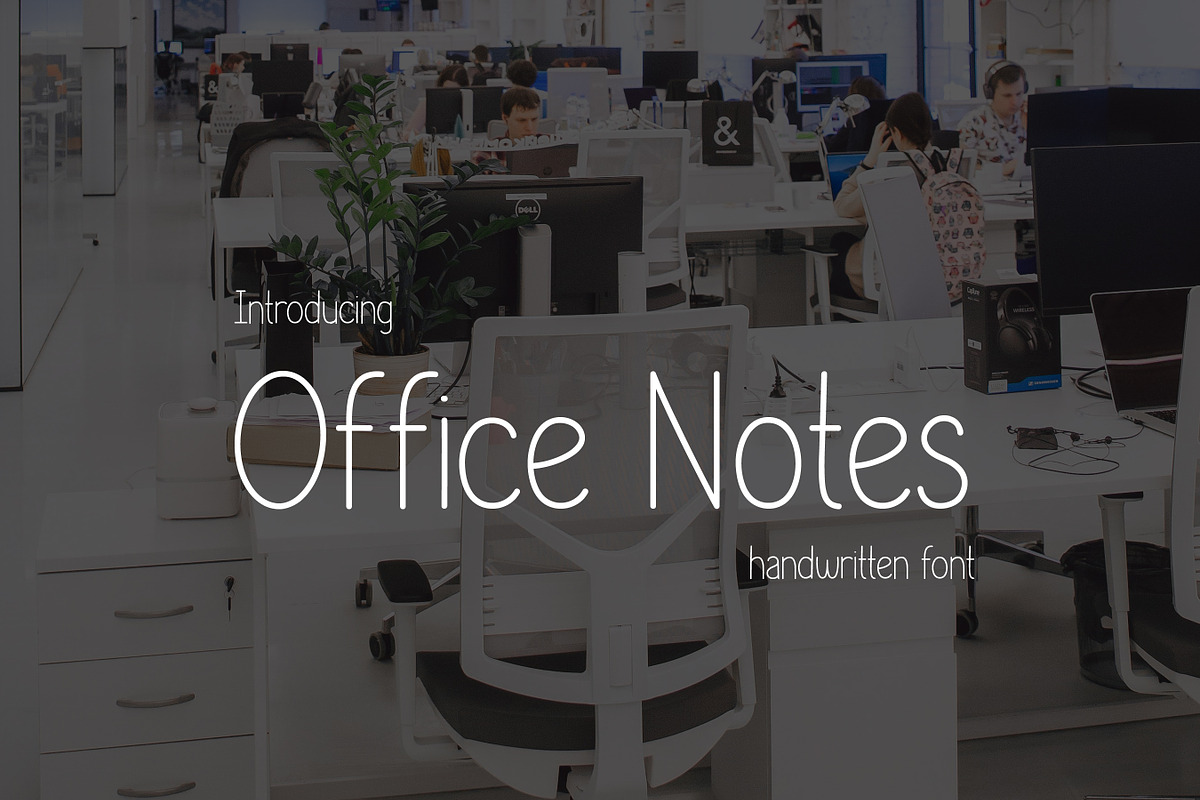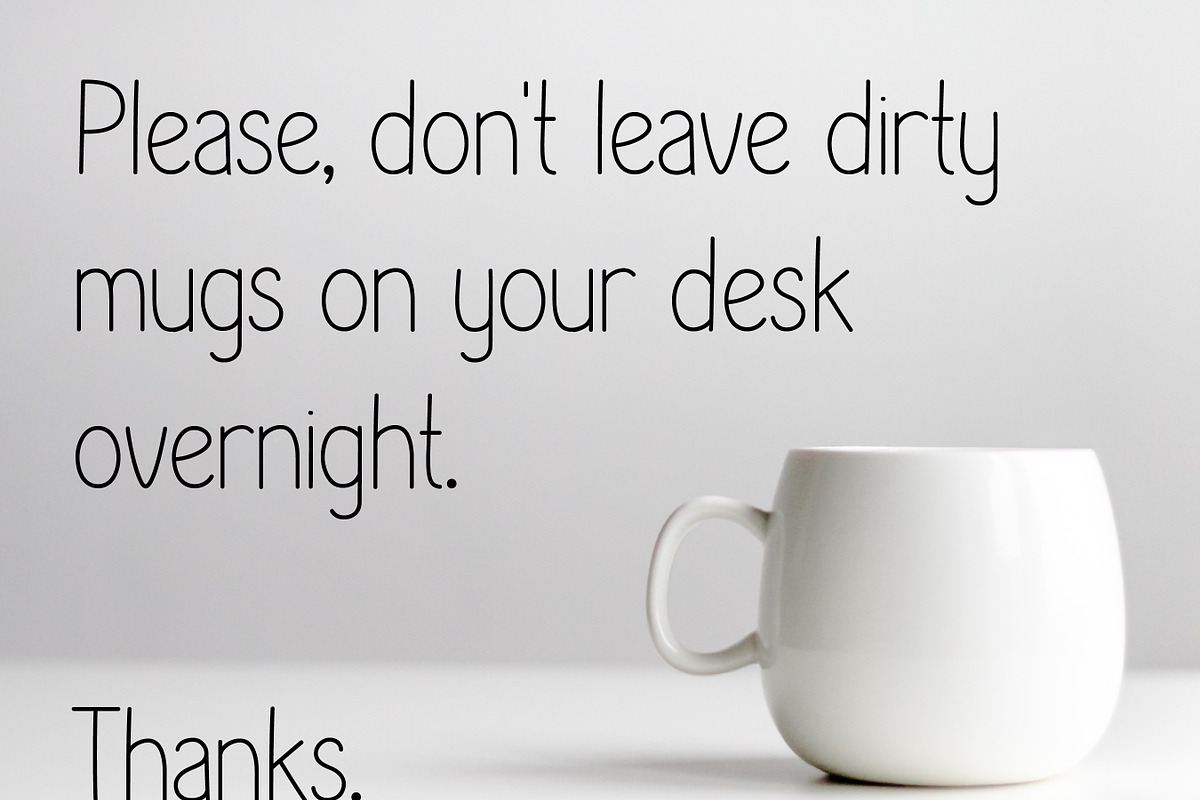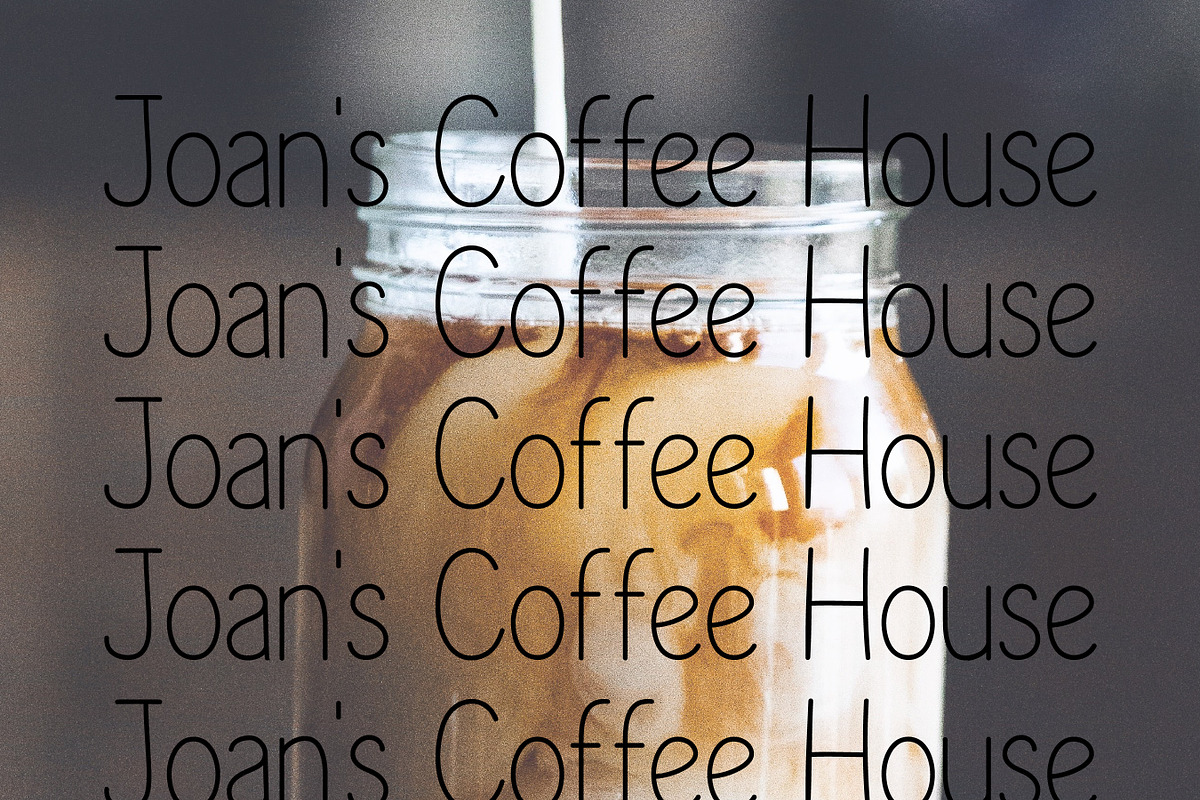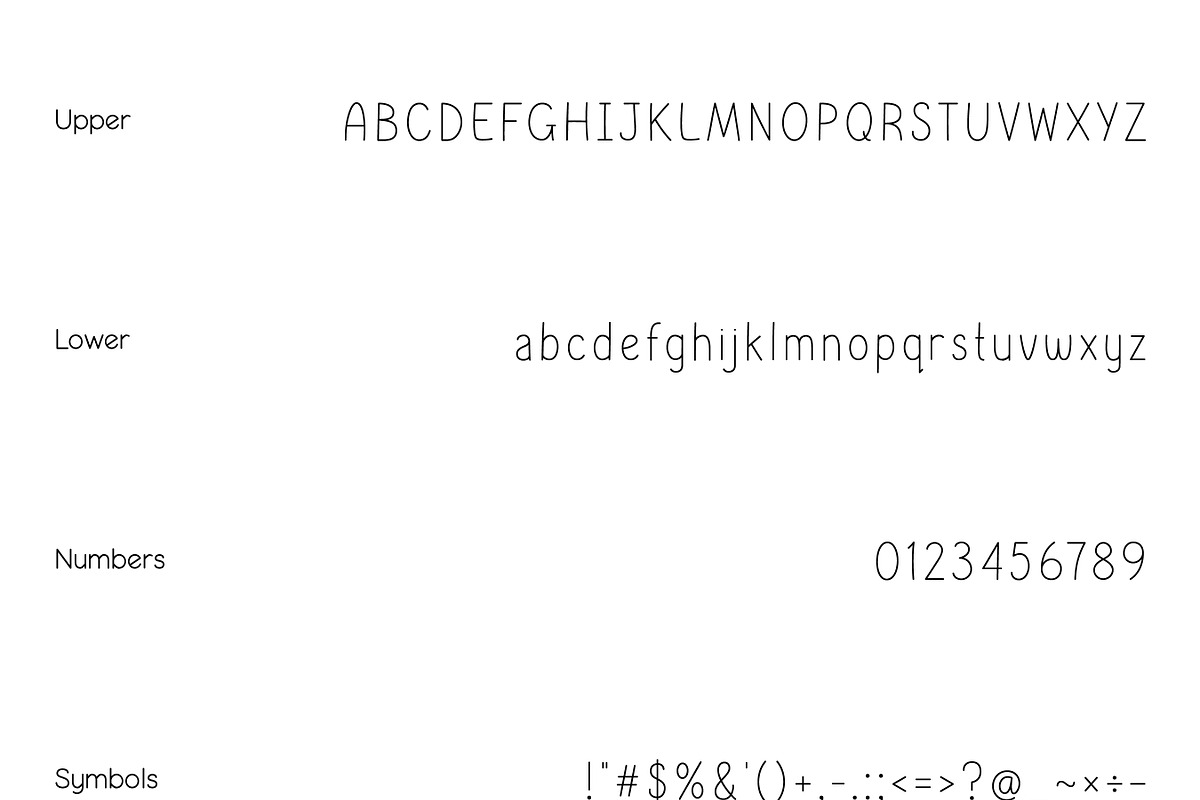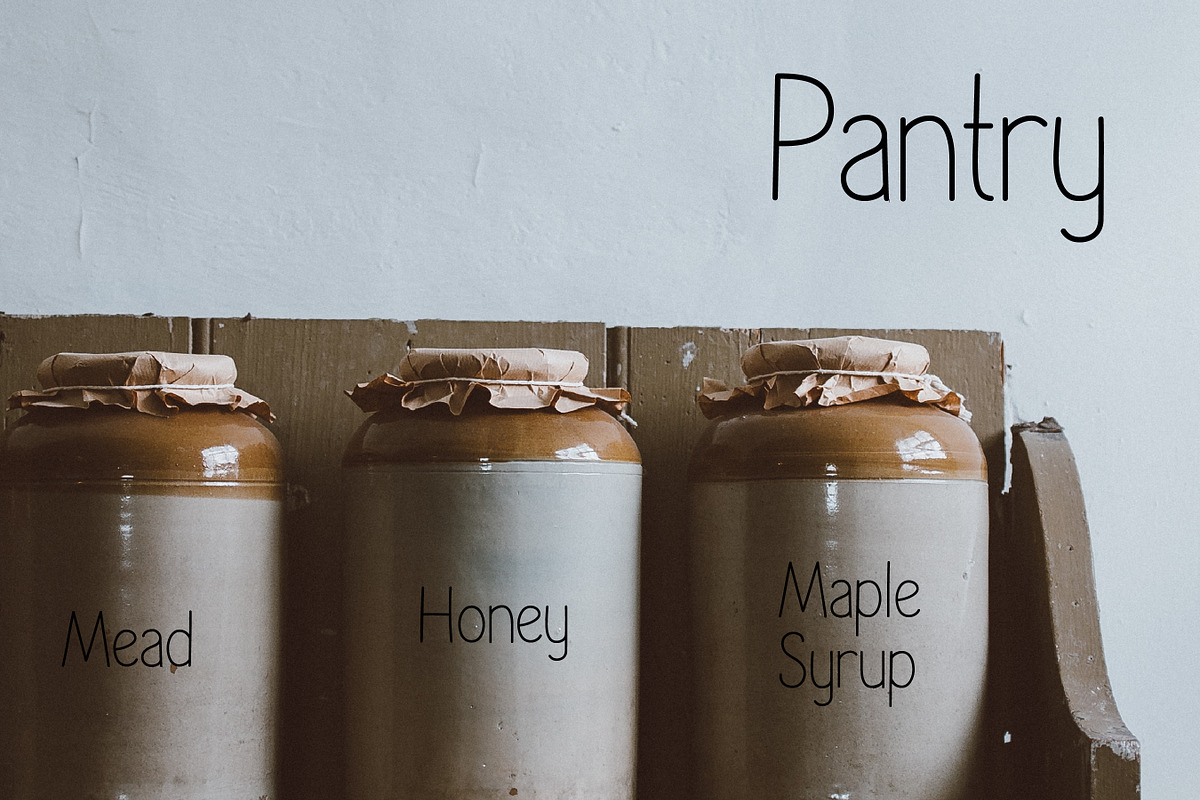
Office Notes Font
Office Notes is a clean and legible handwritten notes font. It’s perfect for a digital planner or writing personalized notes. The thin stroke makes it perfect for digital journaling.